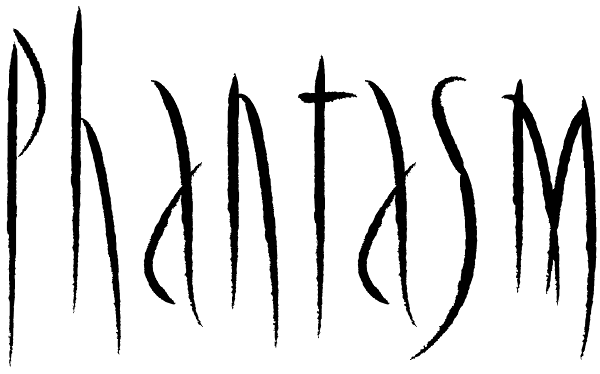
Phantasm
Beware of the Phantasm! Just in time for Halloween, Phantasm is perfect for your creepiest projects. It has great legibility and boasts a much larger character set than most display fonts. It can look wispy and vaporous, or you can make it look like...